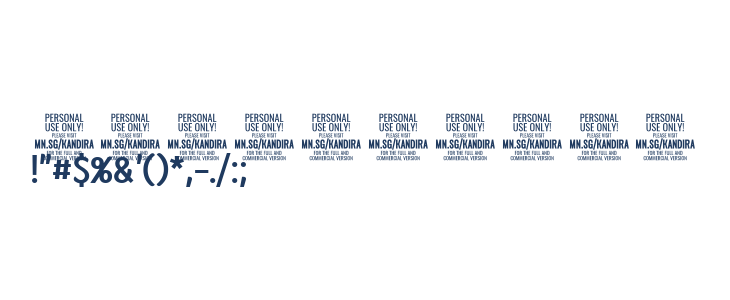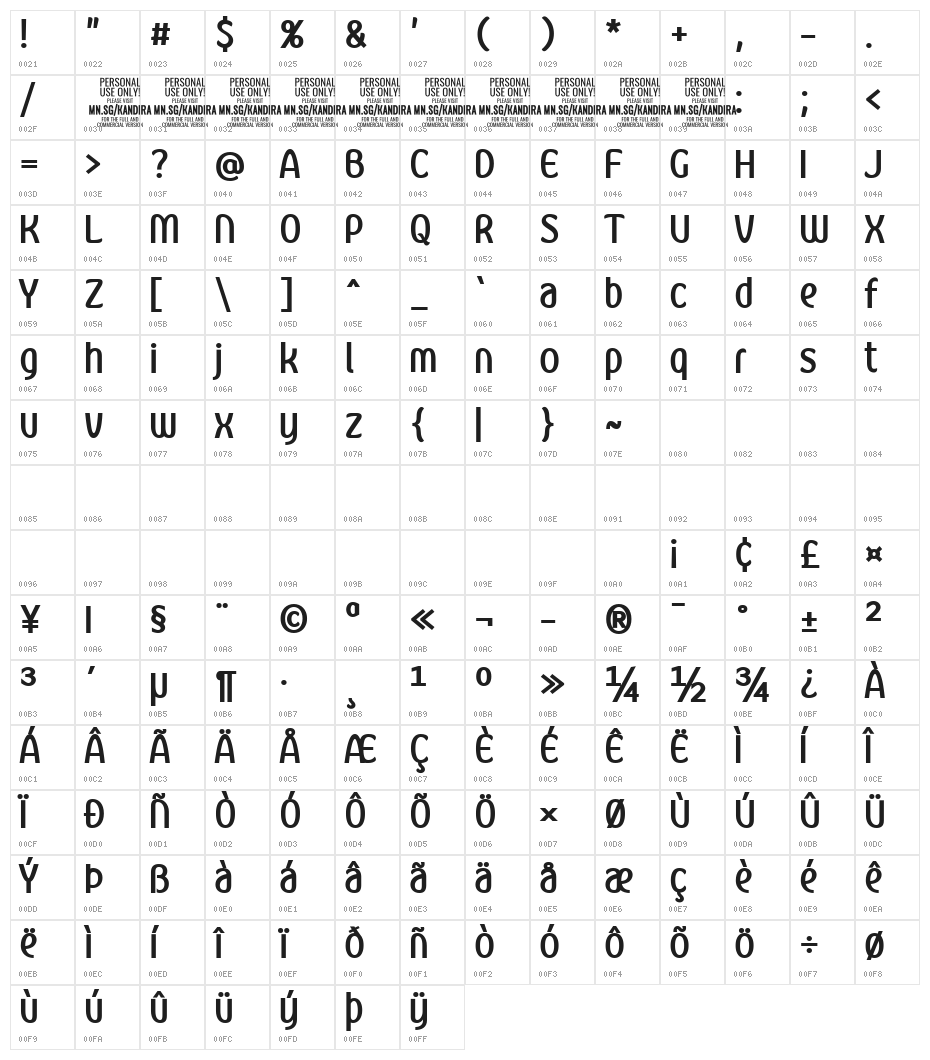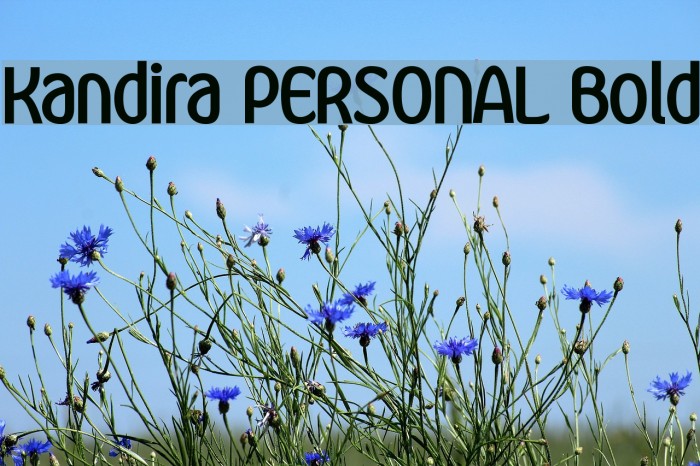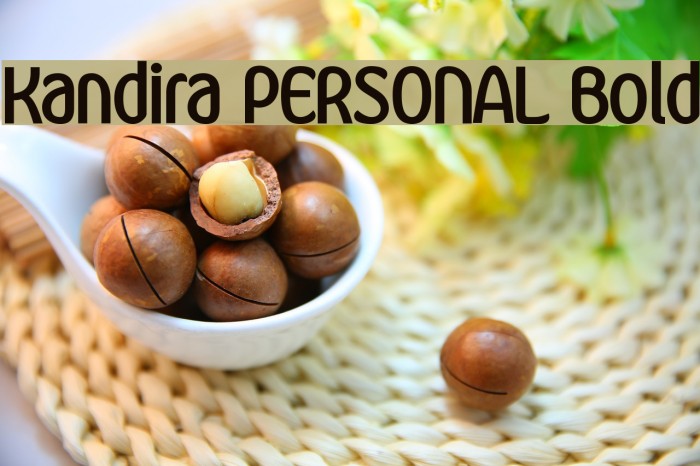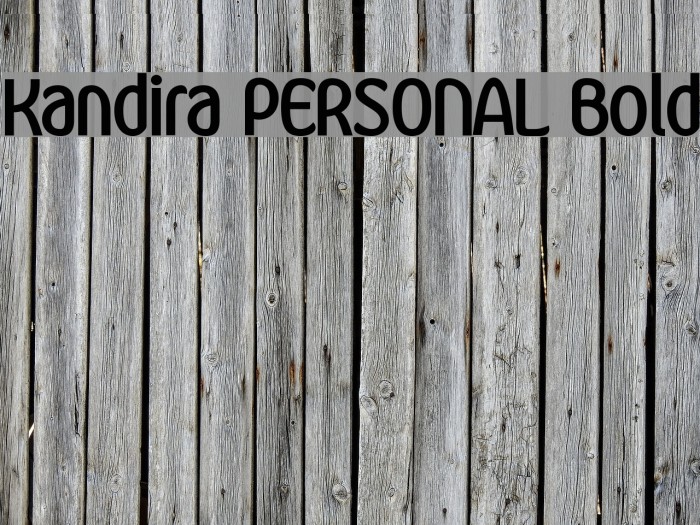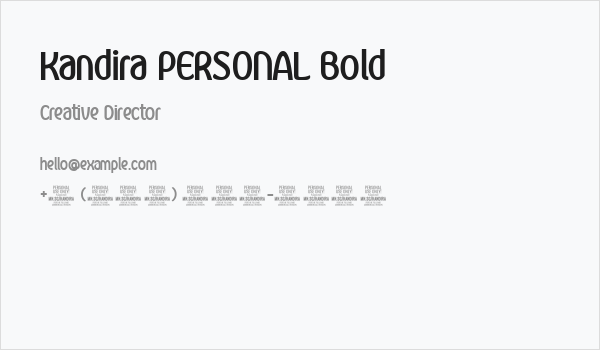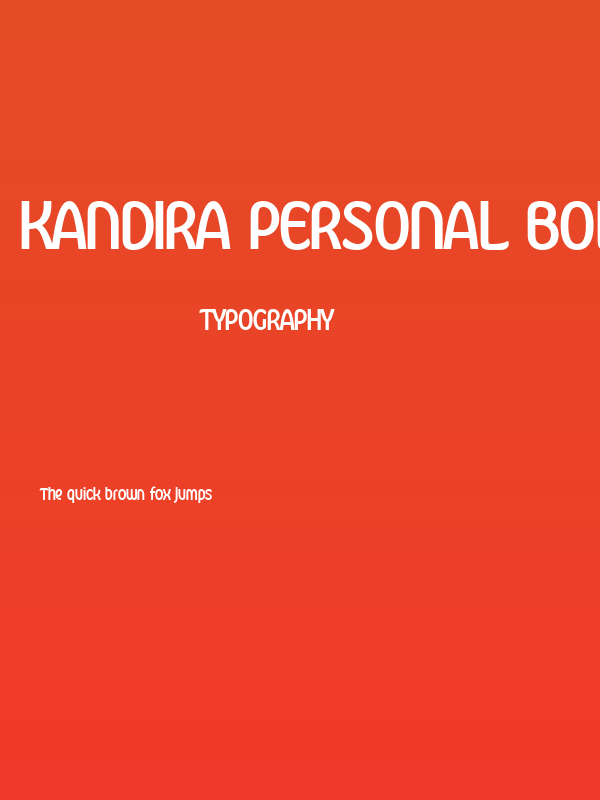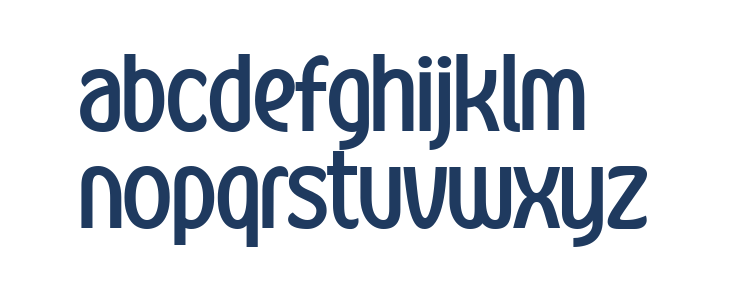
Kandira PERSONAL Bold Font
Kandira PERSONAL Bold Description
This font features a bold and modern sans-serif style with smooth, rounded edges that give it a friendly and approachable appearance. The characters are evenly spaced, providing a clean and organized look. The uppercase letters are tall and commanding, while the lowercase letters maintain a consistent height, ensuring readability. The numbers and special characters are designed to match the overall aesthetic, making them cohesive with the rest of the font. This font is versatile, suitable for both digital and print media, and can be used effectively in various design projects.
| Proposed Projects | Ideal for branding, advertising, headlines, and digital media projects where a modern and approachable look is desired. |